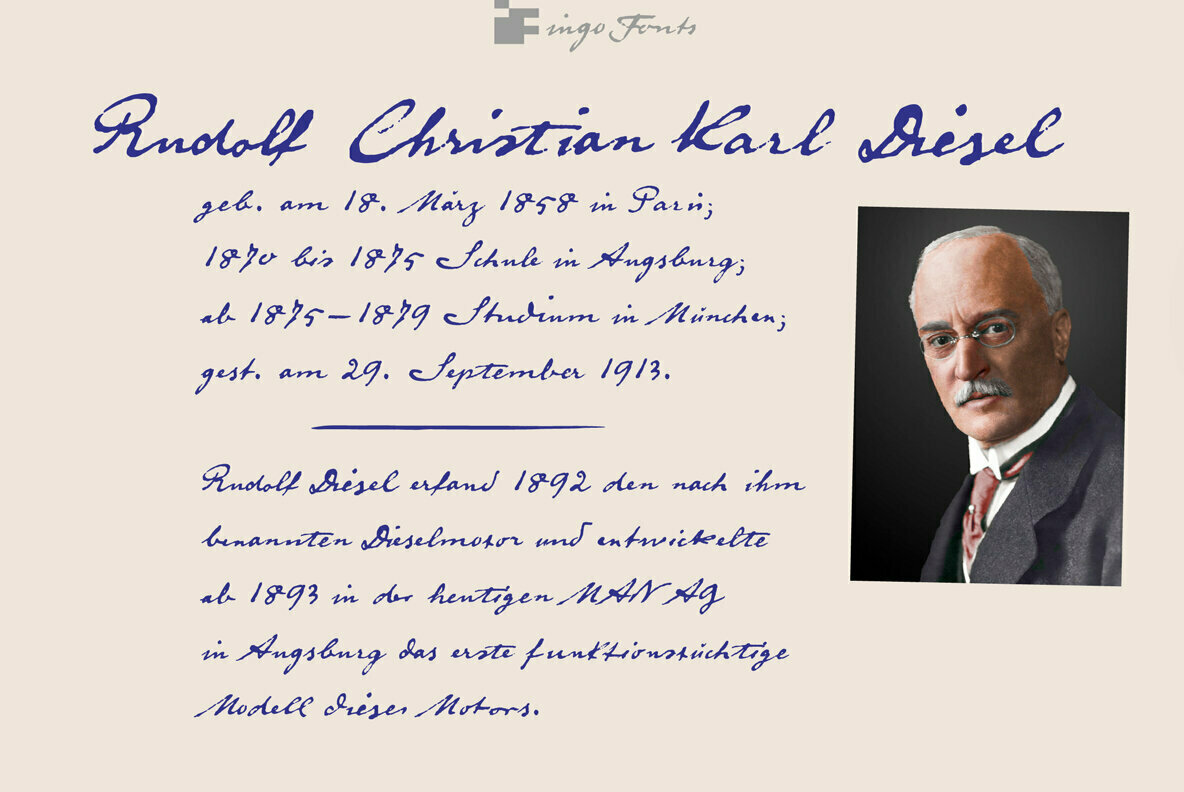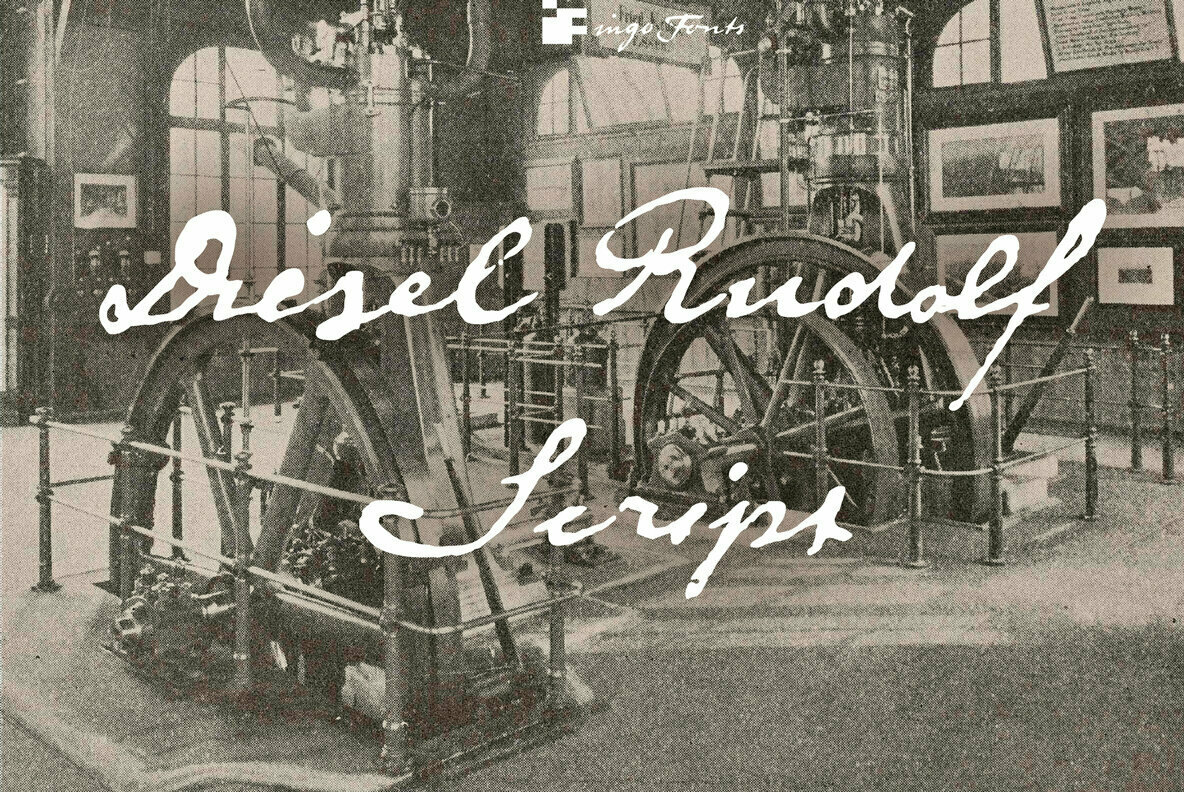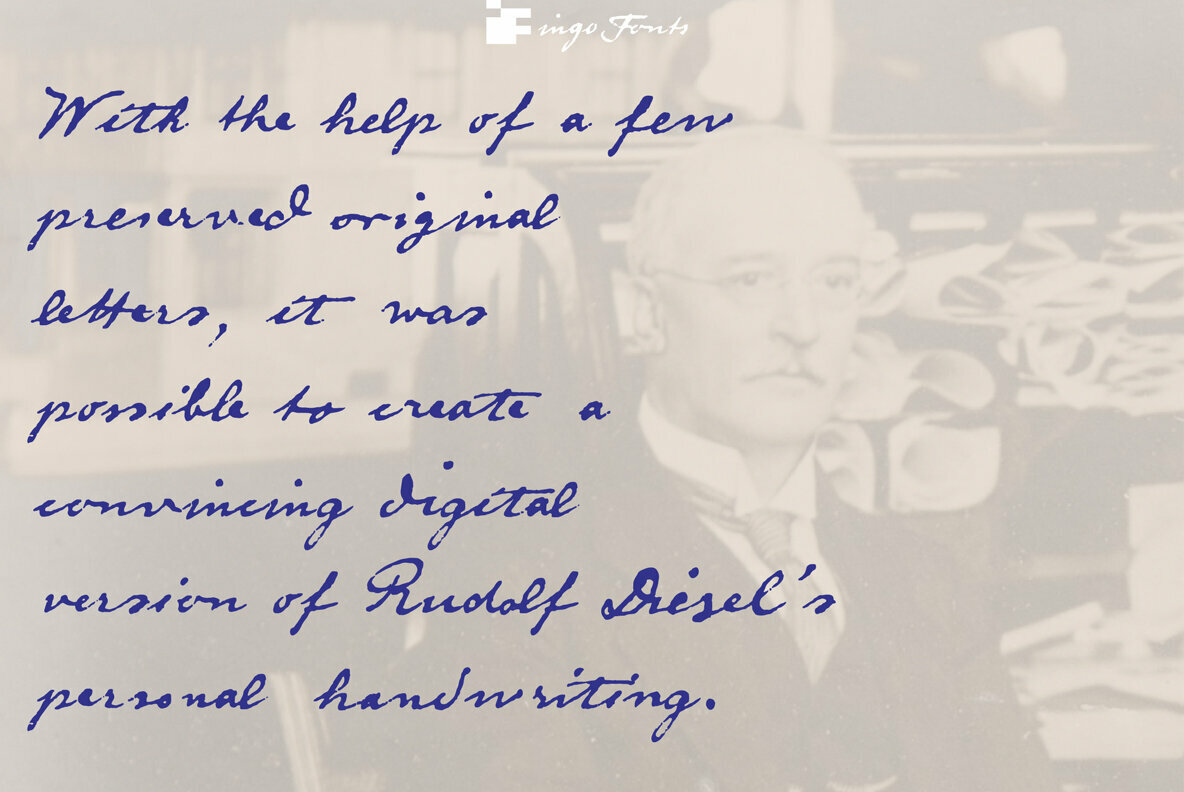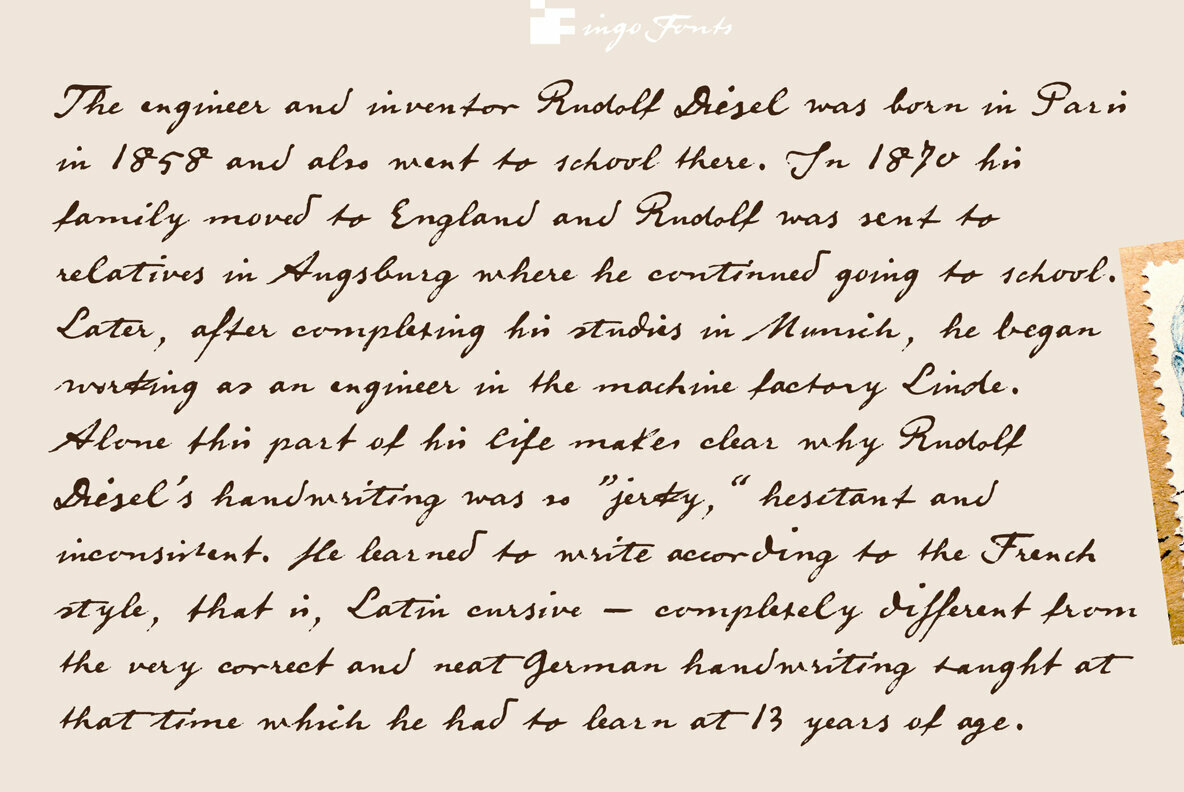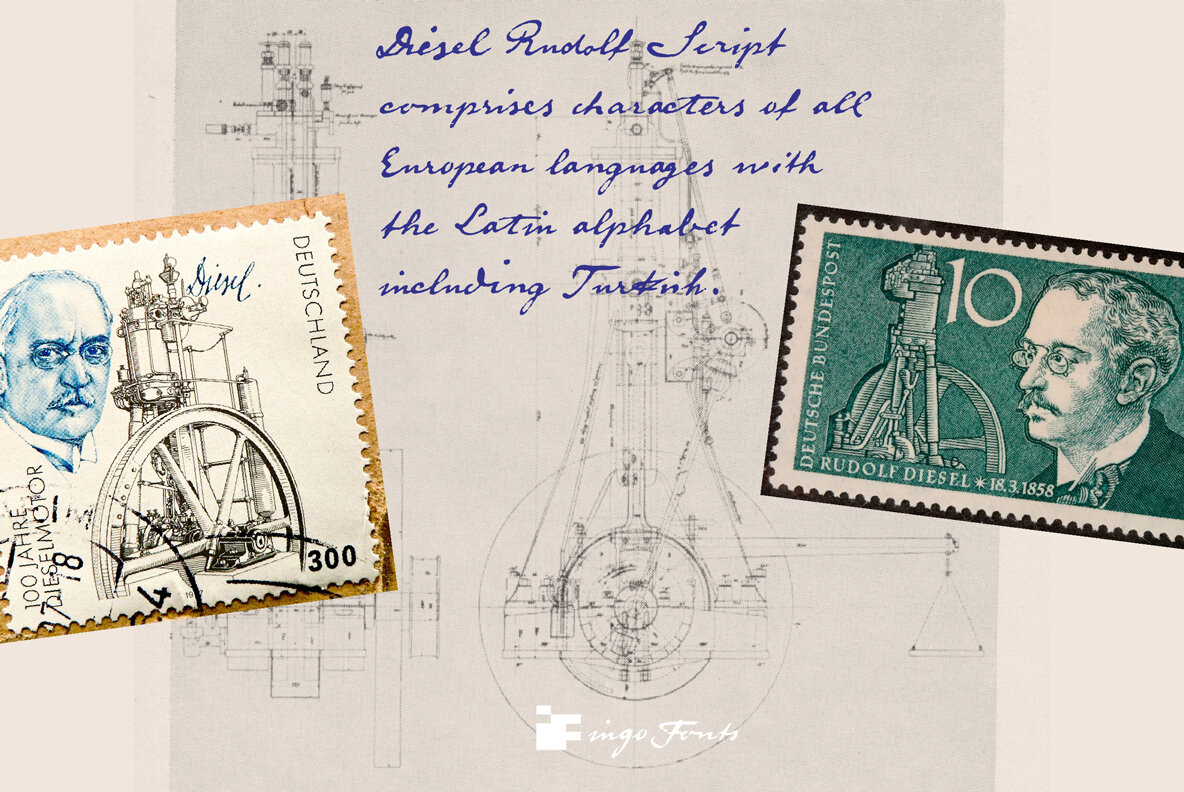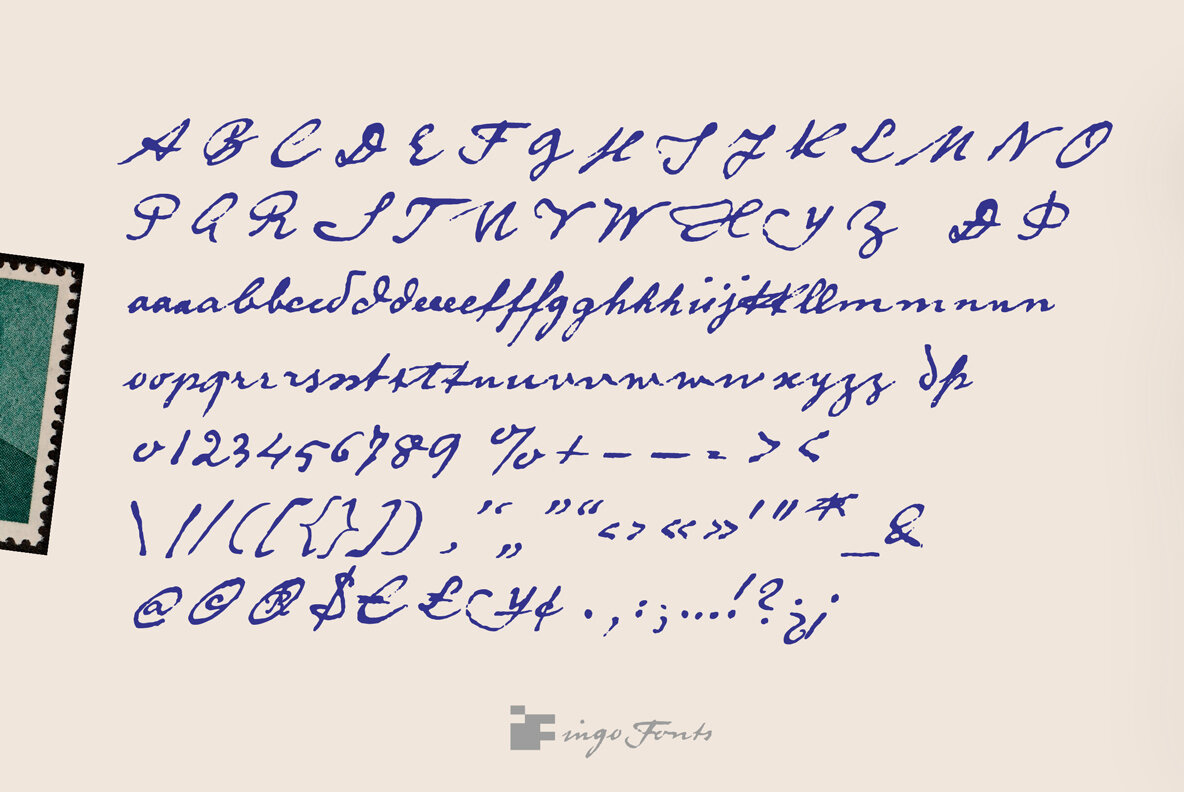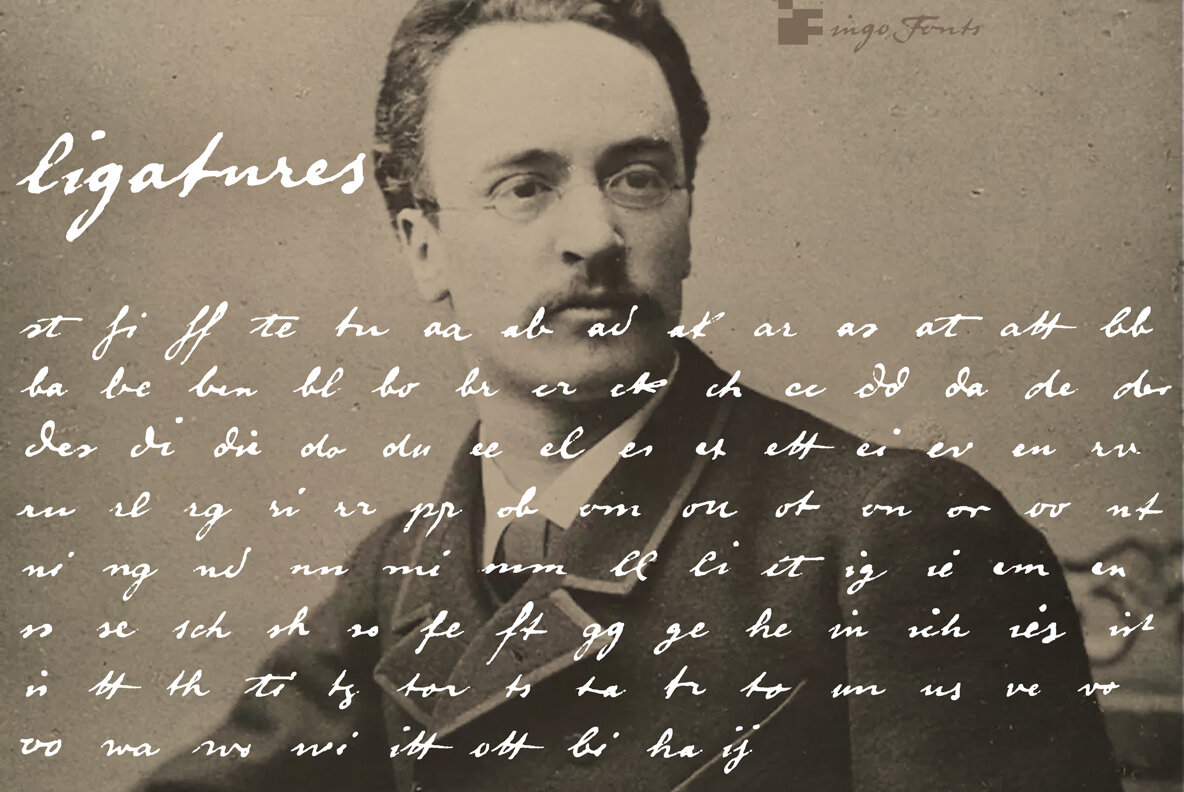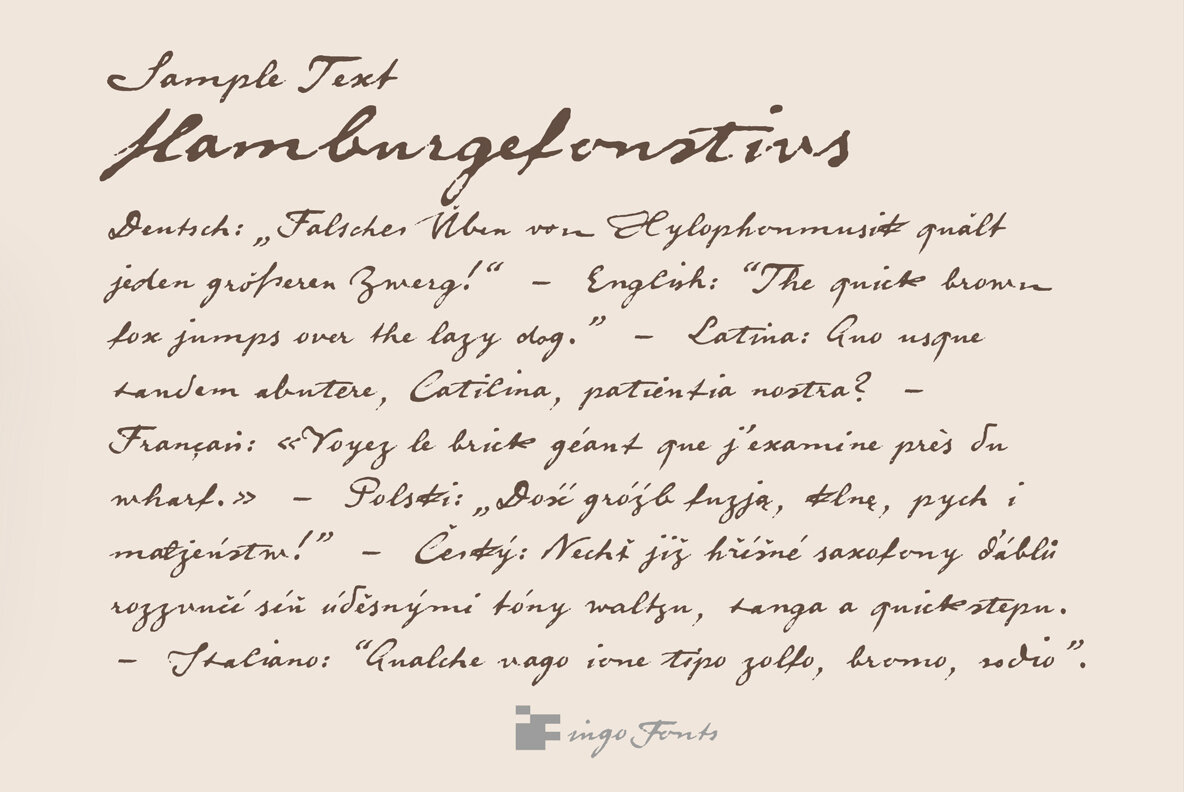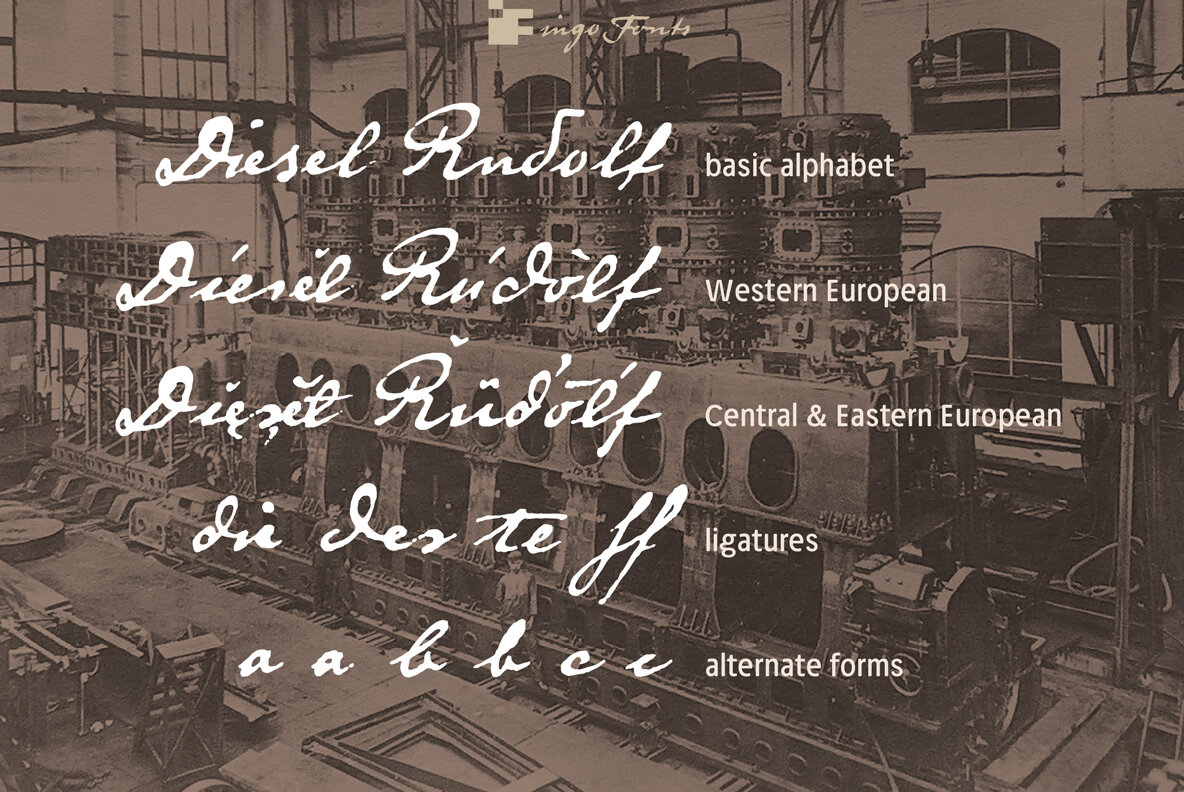
Write like the inventor of the diesel engine — it’s possible with this font patterned after the original handwriting of Rudolf Diesel…
In 2008 the city of Augsburg and the MAN Group celebrated the 150th birthday of Rudolf Diesel, inventor of the diesel engine which was named after him.
With the help of a few preserved original letters, it was possible to create a convincing digital version of Rudolf Diesel’s personal handwriting.
The engineer and inventor Rudolf Diesel was born in Paris in 1858 and also went to school there. In 1870 his family moved to England and Rudolf was sent to relatives in Augsburg where he continued going to school. Later, after completing his studies in Munich, he began working as an engineer in the machine factory Linde. Alone this part of his life makes clear why Rudolf Diesel’s handwriting was so ”jerky,“ hesitant and inconsistent. He learned to write according to the French style, that is, Latin cursive — completely different from the very correct and neat German handwriting taught at that time which he had to learn at 13 years of age.
These circumstances explain why his handwriting is ”messy“ (especially for those days) with its mixtures of letter forms within a text, even within individual words. Plus, he obviously did not attach much importance to ”pretty writing.“ Sometimes the characters are wide, then narrow, sometimes large and clear and then again crammed and primitive. The individuality is emphasized with characteristics derived from quill and ink.
Diesel Rudolf Script comprises characters of all European languages with the Latin alphabet including Turkish.